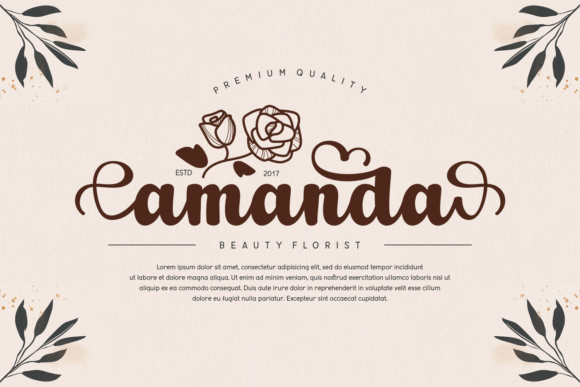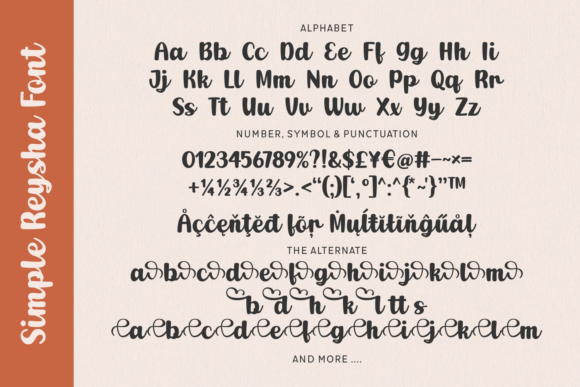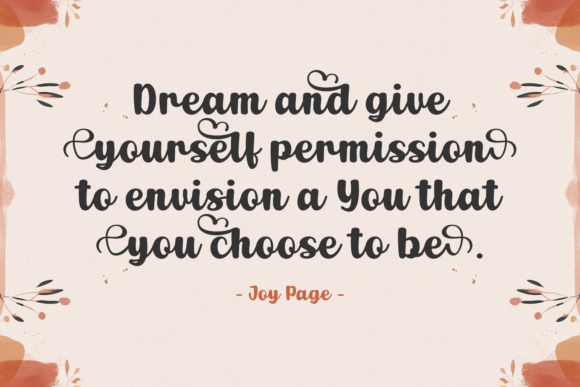
Introduction to Simple Reysha Font
Simple Reysha is a cute and bold script font that feels friendly and playful.
It has smooth, rounded letters that make your words look fun and easy to read Perfect for adding a touch of warmth and charm to any design.
Why Choose Simple Reysha Font?
Simple Reysha Font offers exceptional quality and versatility, making it a valuable addition to your design toolkit. Whether you’re creating for personal projects or commercial use, Simple Reysha Font delivers professional results.